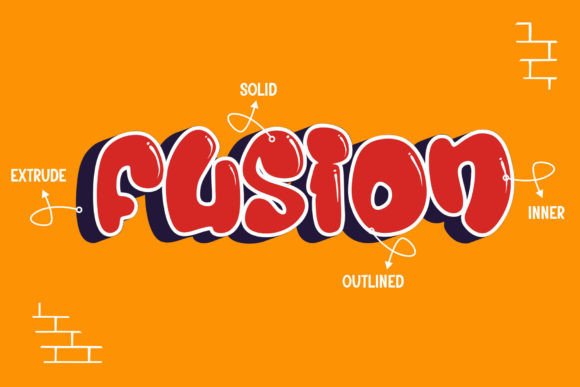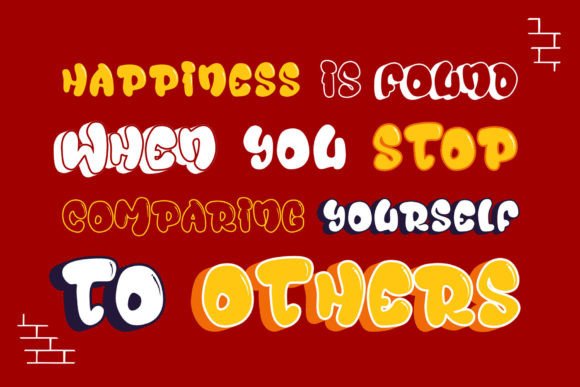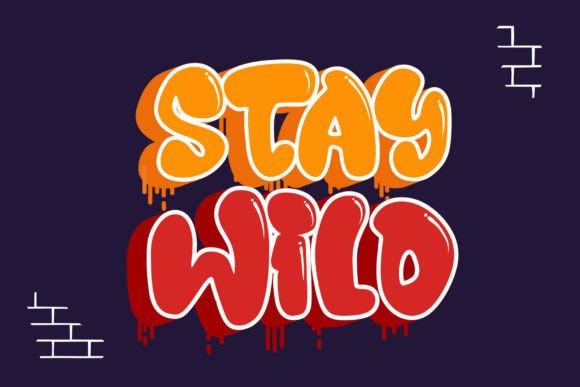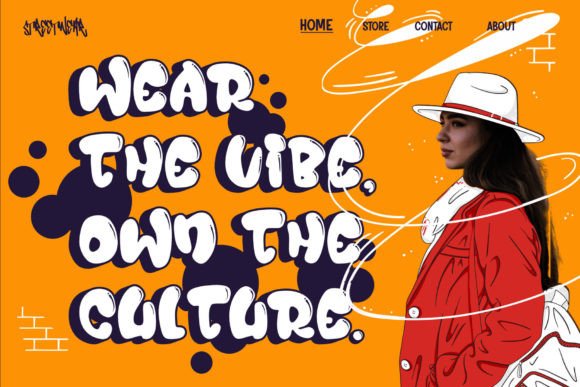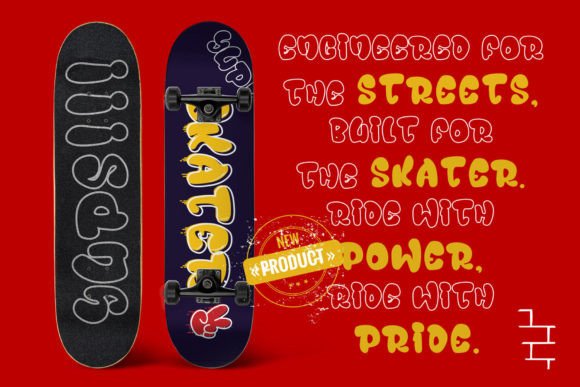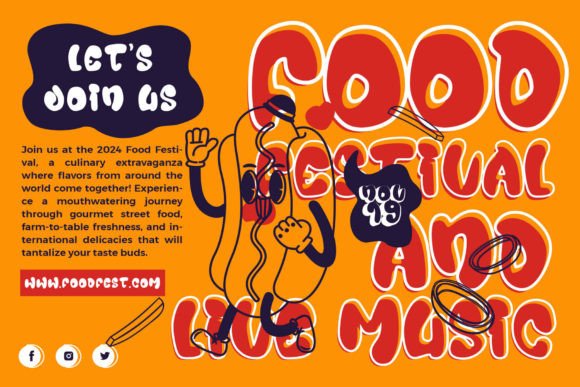
Introduction to Juicy Snap Font
As a designer, there’s nothing quite like the thrill of unleashing your creativity and watching your vision come to life. But sometimes, finding the perfect design resource to match your unique style and vision can be a challenge. That’s where the Juicy Snap Font comes in – a high-quality, 3D display font that’s bursting with energy and personality.
Imagine a font that’s as playful as it is professional, with plump characters and a vibrant aesthetic that’s sure to grab attention. With its four layered typefaces, including extrude, outlined, solid, and inner shadow, the Juicy Snap Font gives you the freedom to experiment with depth, dimension, and a range of effects. Whether you’re working on a creative project or simply need a fun design element to add some visual interest, this font is a must-have for any designer looking to add a touch of whimsy to their work.
Key Features of Juicy Snap Font
• High-quality design resource for creative projects: The Juicy Snap Font is designed to provide a visually appealing and engaging experience for your audience.
• Transparent background: This feature allows you to easily place the font over any background image or color, giving you complete design flexibility.
• Unique characteristics: The Juicy Snap Font features a bold, playful, and modern design that is perfect for adding a touch of excitement to your creative project.
Honest Review: Juicy Snap Font
I recently stumbled upon the Juicy Snap Font, and I must say, it’s been a game-changer for my creative projects. As a designer, I’m always on the lookout for high-quality fonts that can elevate my work. And this one definitely delivers. With its fun and playful style, it’s perfect for adding a touch of personality to my designs.
What I love most about the Juicy Snap Font is its versatility. It’s suitable for a wide range of creative projects, from branding and advertising to digital products and social media graphics. Plus, it’s available for free download, making it an excellent resource for designers on a budget.
Here are some of the key features that make the Juicy Snap Font stand out:
• High-quality design with a transparent background
• Fun and playful style that’s perfect for adding personality to designs
• Suitable for a wide range of creative projects, from branding to digital products
What works well: ✨ The Juicy Snap Font is incredibly easy to use and customize, making it a breeze to integrate into my designs. Its high-quality design and transparent background ensure that it looks great on any background.
Limitations: ⚠️ One thing to note is that the font may not be suitable for formal or professional projects, as its playful style may not be taken seriously in those contexts.
Overall impression: I’m thoroughly impressed with the Juicy Snap Font. Its fun and versatile design, combined with its high-quality and free download features, make it an excellent resource for designers. I highly recommend it for anyone looking to add a touch of personality to their creative projects.
Tips for Getting the Most Out of Juicy Snap Font
For optimal results, use Juicy Snap Font on a high-contrast background to make the text stand out. You can also experiment with different font sizes and styles to create a visually appealing design. Additionally, consider using the font in conjunction with other design elements to add depth and interest to your creative project.